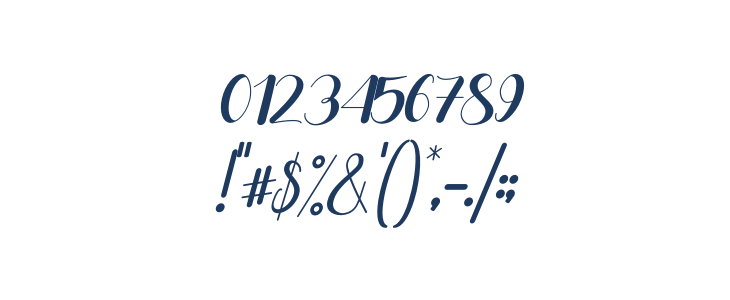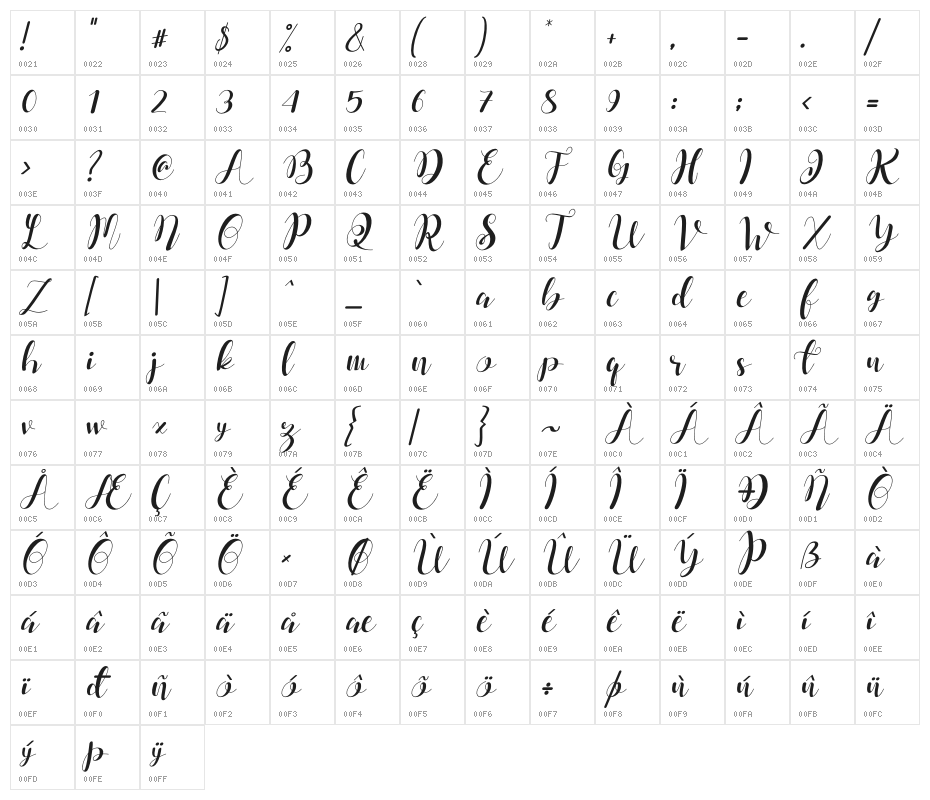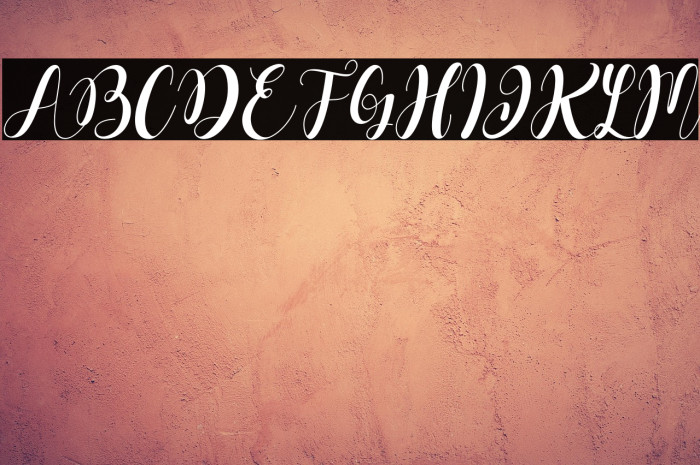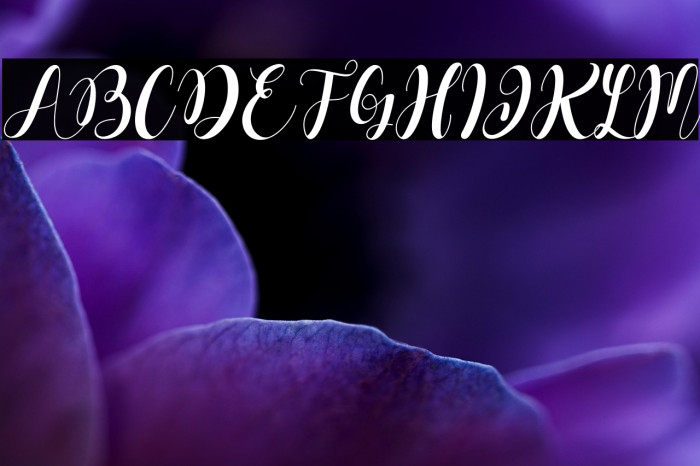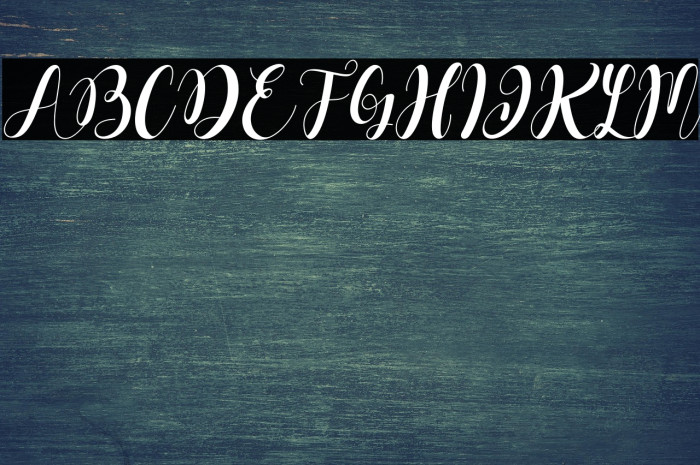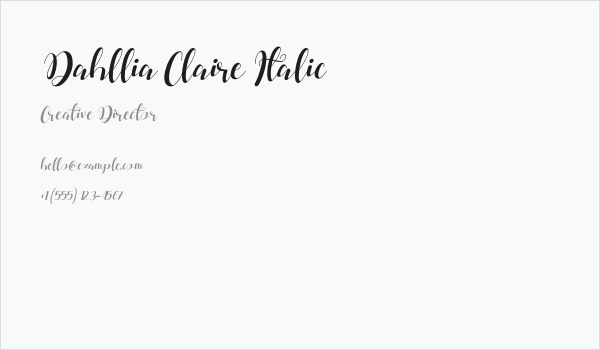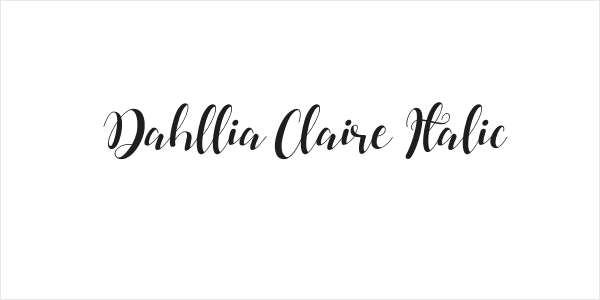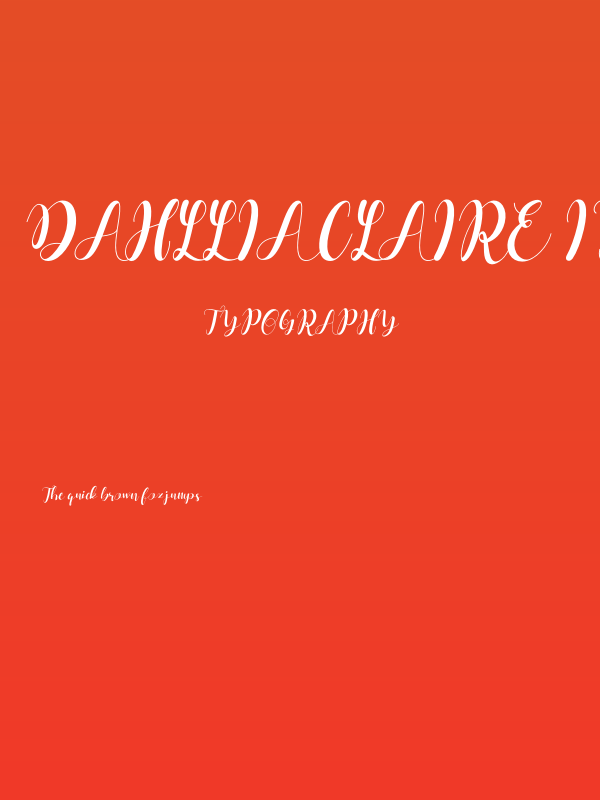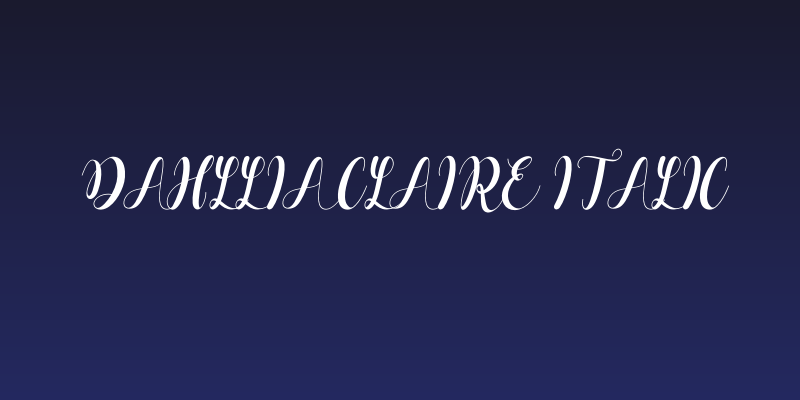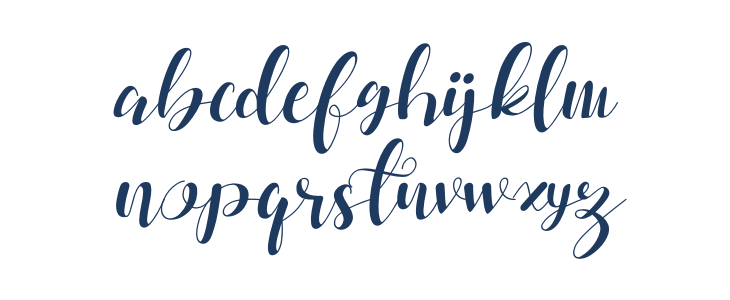
Dahllia Claire Italic Font
Dahllia Claire Italic Description
This elegant script font features a flowing, cursive style with a sophisticated flair. The letters are intricately designed with smooth curves and delicate swashes, giving it a graceful and romantic appearance. The uppercase letters are particularly ornate, with flourishes that extend beyond the baseline, while the lowercase letters maintain a consistent rhythm and flow. The numerals are stylishly integrated, matching the overall aesthetic of the font. Special characters are thoughtfully crafted, adding to the font's versatility. This font exudes a sense of elegance and refinement, making it suitable for formal and decorative applications.
| Proposed Projects | Ideal for wedding invitations, elegant branding, greeting cards, and decorative signage. |